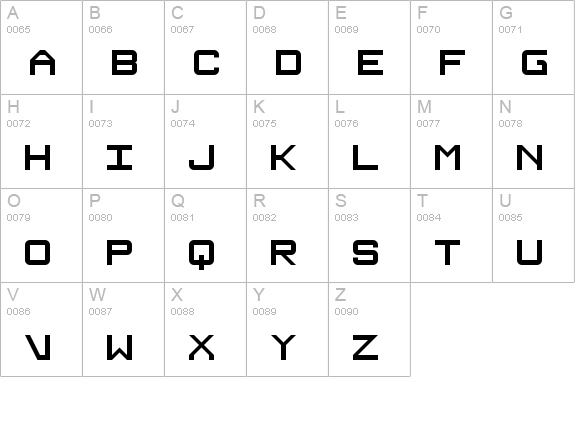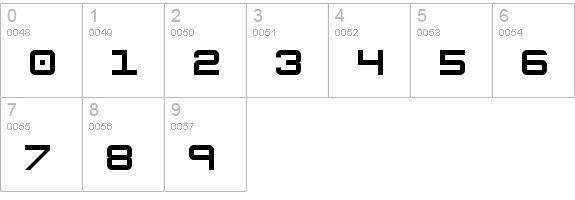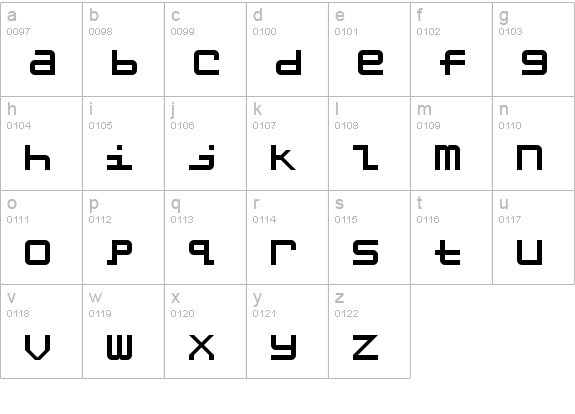
Grishenko NBP Regular is the standard, neutral variant in the Grishenko typeface family \xE2\x80\x94 well suited to general body text, paragraphs, and standard typographic work.
Grishenko NBP Regular font is a stunning typographic masterpiece, designed to bring elegance and sophistication to any project. Its sleek and modern design exudes a sense of professionalism, making it the perfect choice for a wide range of creative endeavors. With its clean lines and balanced proportions, Grishenko NBP Regular font captures attention while maintaining readability. Whether you're designing a logo, crafting a website, or creating eye-catching marketing materials, this font will make your message stand out. But what sets Grishenko NBP Regular font apart is that it is not only visually striking, but it is also free. Yes, you read that right - this incredible font is freely available to download at FontsMarket.com. Now, you can enhance your designs without breaking the bank. So, why wait? Discover the power of Grishenko NBP Regular font and elevate your projects to new heights. With its seamless blend of style and accessibility, this font is sure to become an invaluable asset in your creative arsenal. Don't miss out on this incredible opportunity - download Grishenko NBP Regular font today and see the magic unfold.